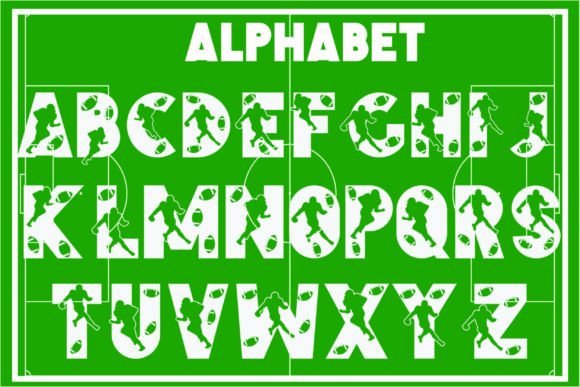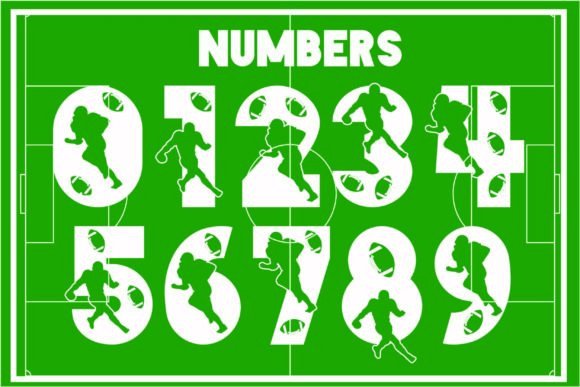
The Ultimate Game-Changer: American Football Font
I’ll never forget the time I was working on a project for a sports brand, and I just couldn’t find the right font to capture the essence of American Football. The client was specific: they wanted something bold, authentic, and eye-catching. I scoured the internet, tried out countless fonts, but nothing seemed quite right. That was until I stumbled upon the American Football font. It was like a Hail Mary pass – it saved the project and exceeded my client’s expectations!
Are you a designer, crafter, or creative hobbyist looking to elevate your projects? Look no further than the American Football font. In this article, we’ll dive into the world of this bold and authentic decorative font, exploring its features, how to use it, and some similar alternatives.
- ✨ Bold and Authentic: The American Football font is the real deal. Its bold and authentic design screams American Football, making it perfect for sports-related projects.
- ✅ Highly Versatile: This font is not just limited to sports; it’s perfect for any project that requires a bold and eye-catching font.
- 🎉 Easy to Read: Despite its bold design, the font is surprisingly easy to read, making it perfect for headlines, titles, and even body text.
⚠️ While the American Football font is amazing, it’s not without its limitations. Some users have reported issues with:
- 🤔 Kerning: Some users have reported issues with kerning, particularly with certain letter combinations.
- ⚠️ Limited Ligatures: The font has limited ligatures, which may be a drawback for some users.
The American Football font was designed with one goal in mind: to capture the essence of American Football. The designer, inspired by the sport’s bold and authentic style, created a font that’s both rugged and refined. Whether you’re a sports fan or just a fan of bold typography, this font is sure to score a touchdown with your design.
Q: What is the American Football font?
A: The American Football font is a bold and authentic decorative font designed to capture the essence of American Football.